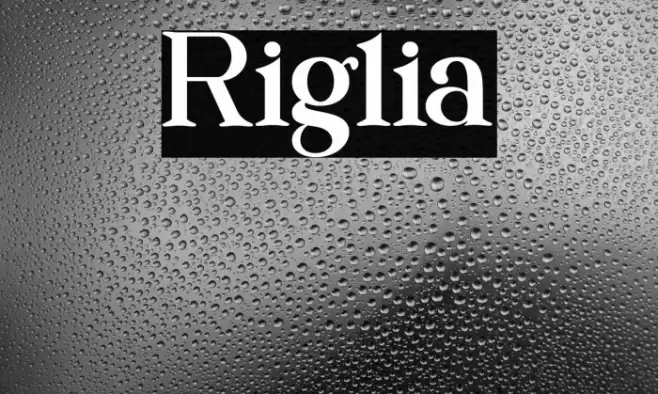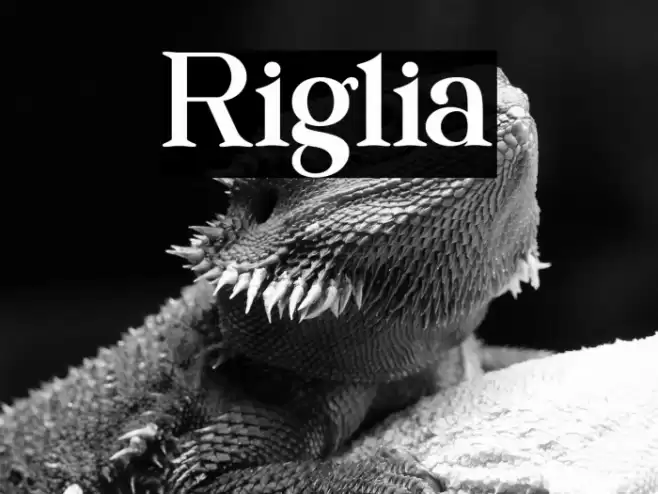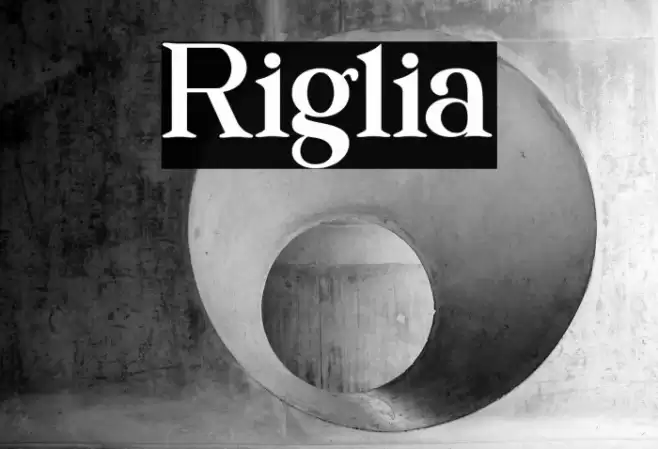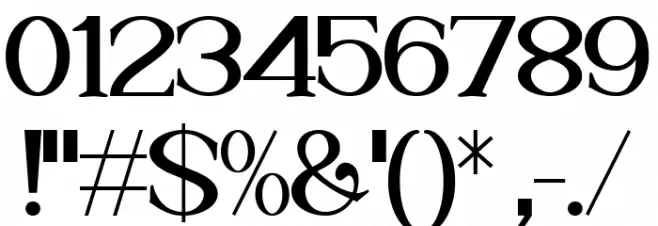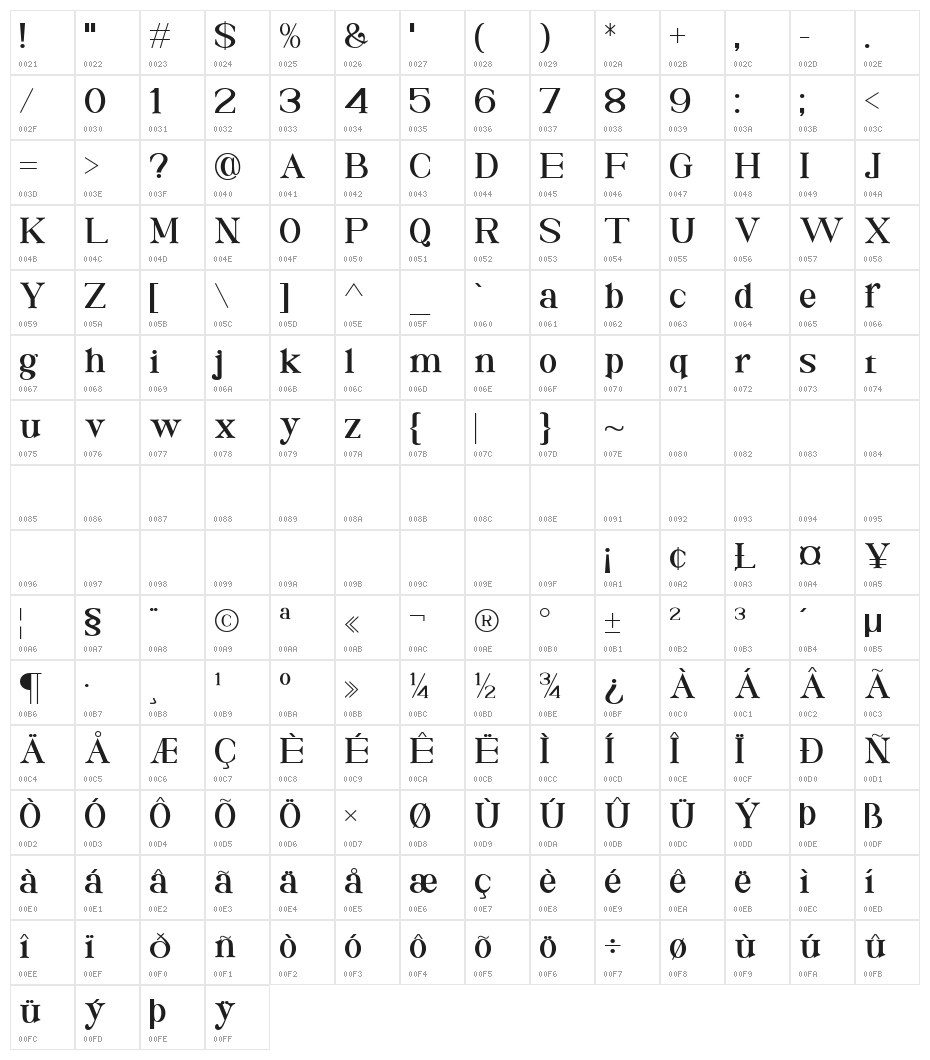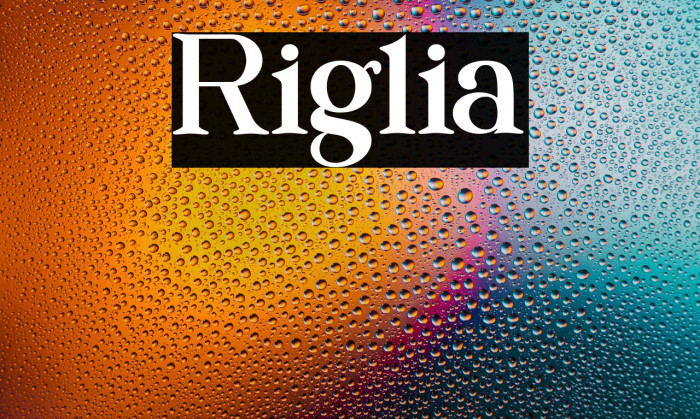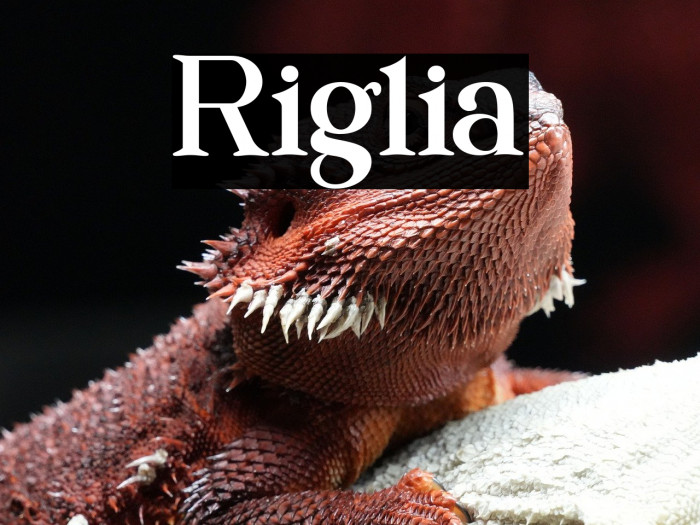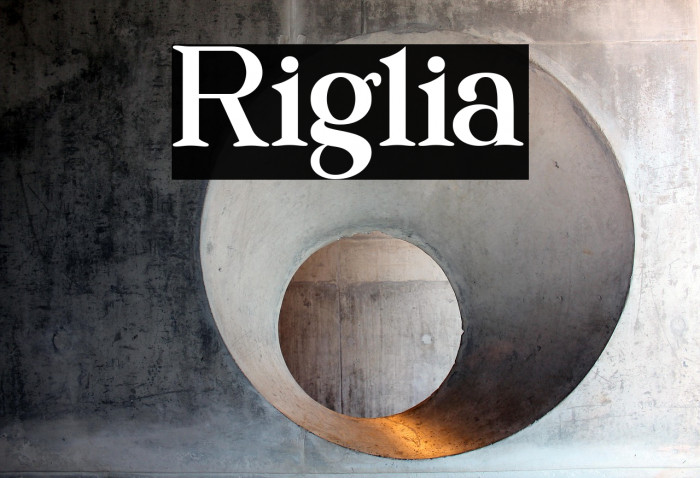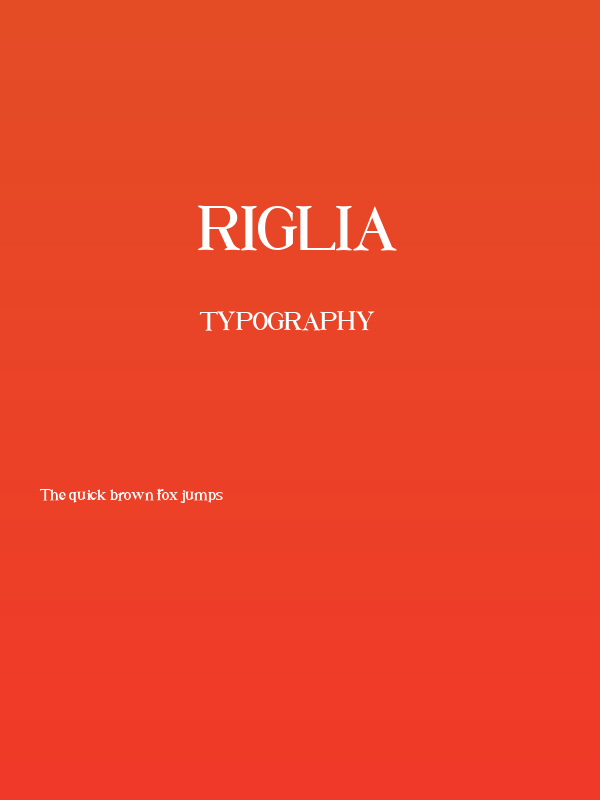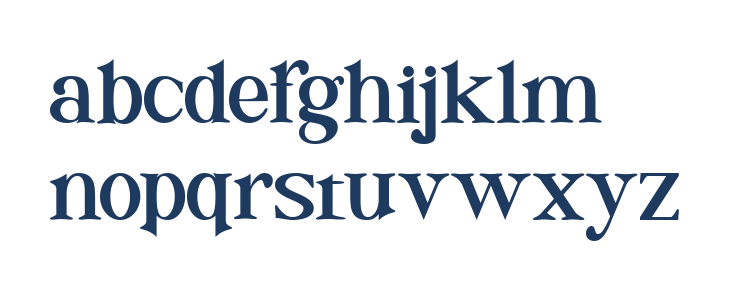
Riglia Font
Riglia Description
This font features a bold and striking design with high contrast between thick and thin strokes, giving it a dramatic and elegant appearance. The serifs are pronounced, adding a touch of sophistication and classic appeal. The uppercase letters are tall and commanding, while the lowercase letters maintain a consistent style with a slightly playful edge. The numerals are distinct and easily readable, making them suitable for various applications. Special characters are well-integrated, maintaining the font's overall aesthetic. This font is ideal for projects that require a strong visual impact and a touch of elegance.
A bold, high-contrast serif font with dramatic strokes and elegant serifs from Regular fonts.
- Font: Riglia
- Proposed Projects: Ideal for branding, editorial design, book covers, and luxury product packaging.
- Overall Style: Classic